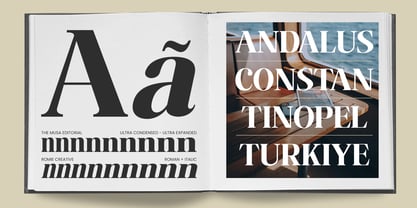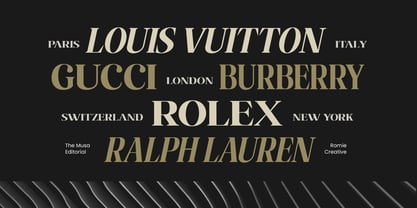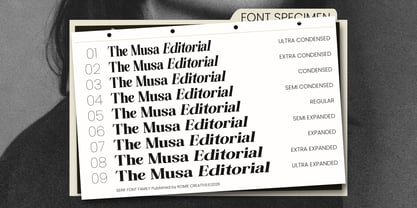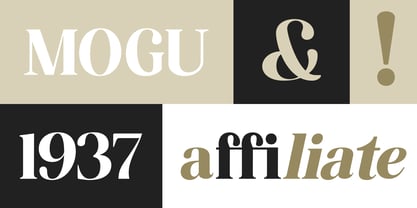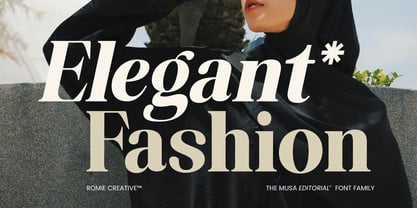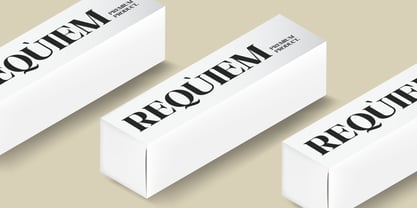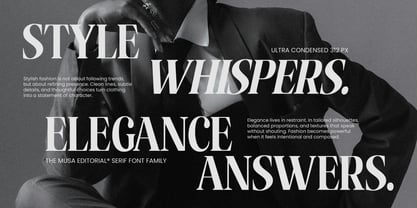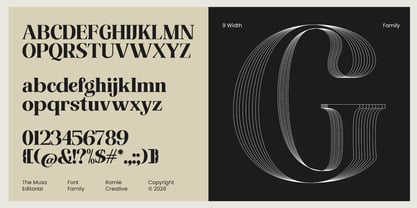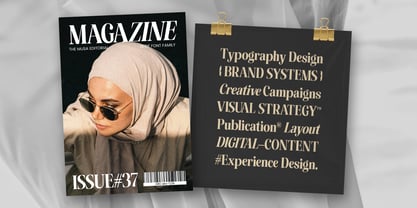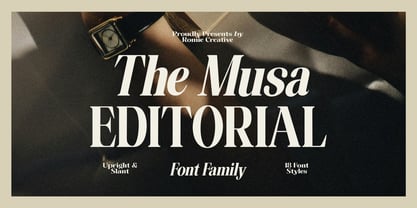
The Musa Editorial
by Romie Creative
The The Musa Editorial Font Family was designed by Romi Rahmadi and published by Romie Creative. The Musa Editorial contains 18 styles and family package options. More about this family
Romie Creative presents the captivating The Musa Editorial | Font Family – a modern, high-contrast transitional serif typeface that exudes a captivating blend of contemporary sophistication and timeless elegance. Born under the skilled hands of Romi Rahmadi, the graceful The Musa Editorial is here to make a lasting impression. The Musa Editorial defining characteristics are the striking contrast between thick and thin strokes, smooth graceful ovals, rounded ball terminals, and sharp bracket serifs that make a strong visual impact. All these qualities make this font ideal for designers who want to create refined and visually stunning compositions that leave an impression. Elegance, sophistication, and exclusivity. Featured images: All photos/images/vectors used in the preview are not included, intended for illustration purposes only. The Musa Editorial is accessible in Adobe Illustrator, Adobe Photoshop, Coreldraw, and even works in Microsoft Word. PUA-Encoded Characters – Fully accessible without additional design software. The font includes multilingual support. Feel free to follow, like and share. Thank you very much for visiting my store
Designers: Romi Rahmadi
Foundry: Romie Creative